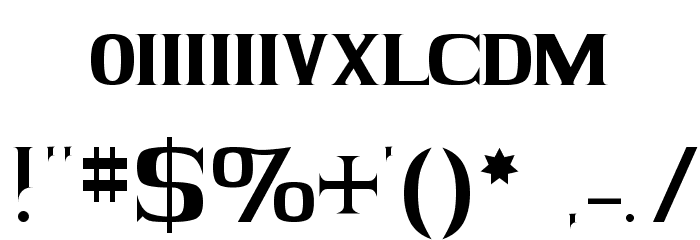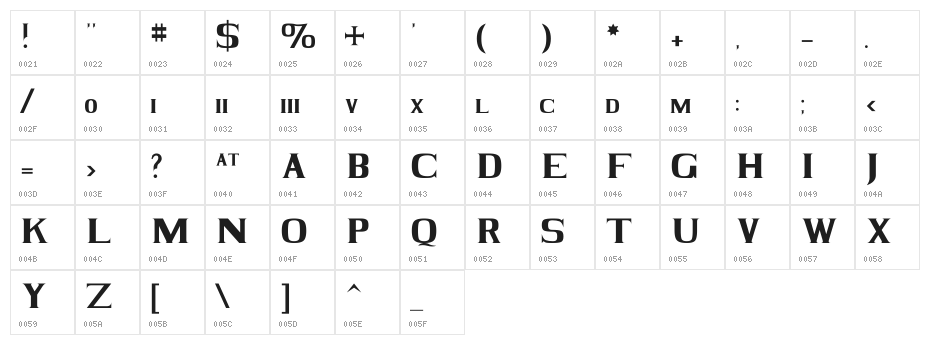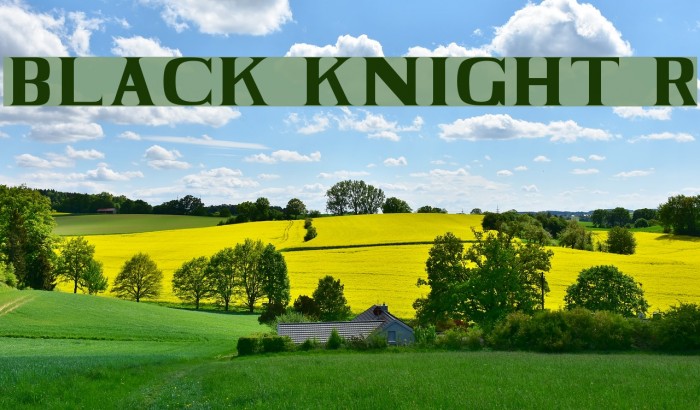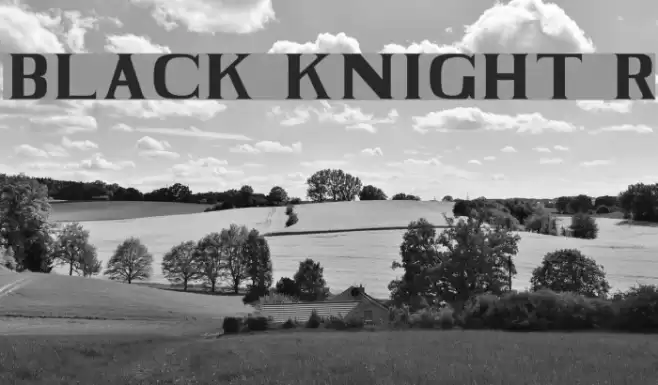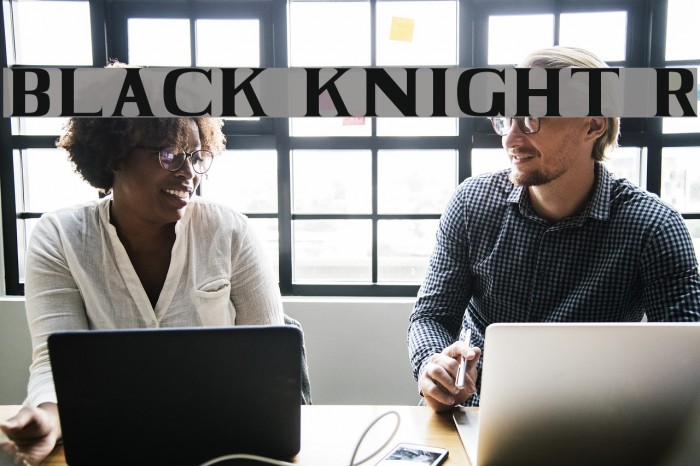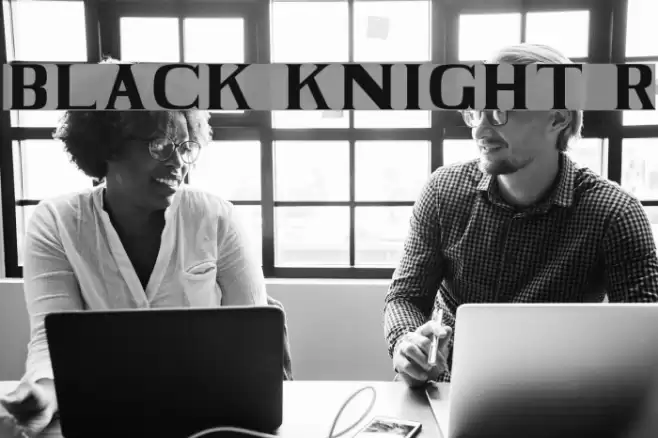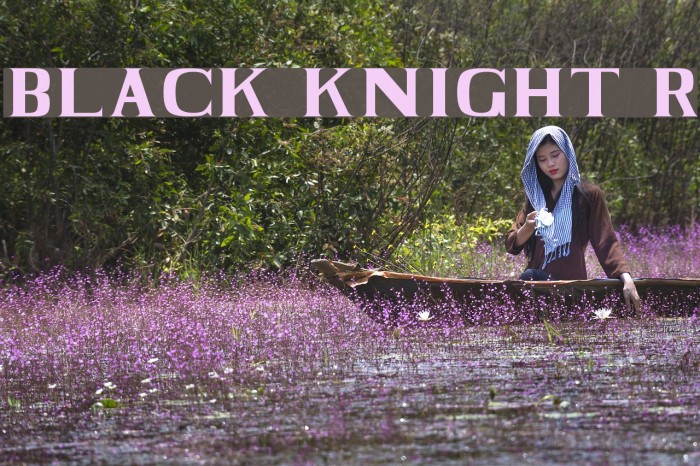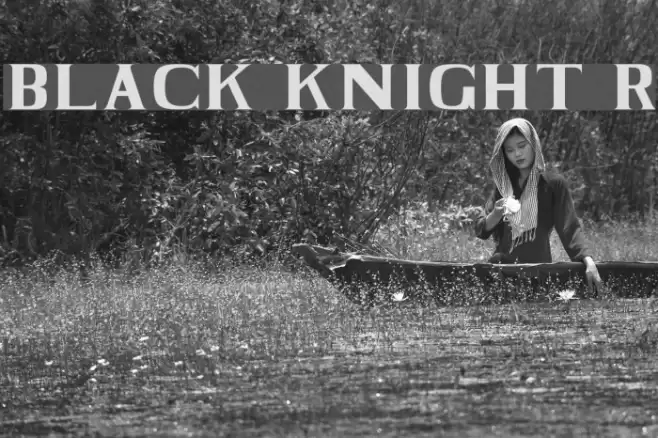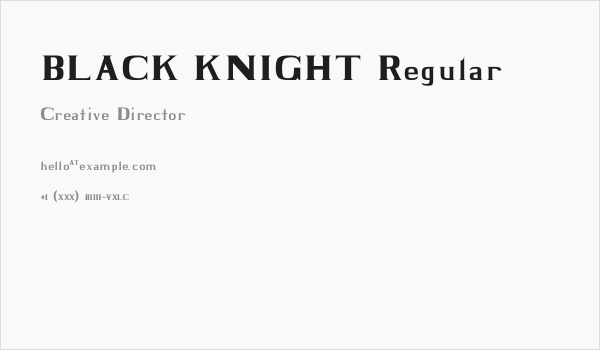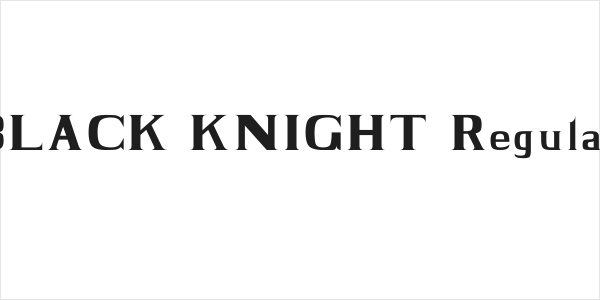
BLACK KNIGHT Regular Font
BLACK KNIGHT Regular Description
This font exhibits a bold and striking design, characterized by sharp, angular serifs and a strong presence. The uppercase letters are particularly commanding, with a medieval flair that suggests strength and authority. The lowercase letters maintain this robust style, with consistent stroke weights and a slightly condensed form. The numerals are equally bold, ensuring they stand out in any context. Special characters are designed with the same attention to detail, making them suitable for a variety of uses. Overall, this font combines traditional elements with a modern twist, making it versatile for both historical and contemporary applications.
| Proposed Projects | Ideal for projects requiring a strong, authoritative typeface, such as branding for historical or fantasy-themed events, book covers, or video game titles. |